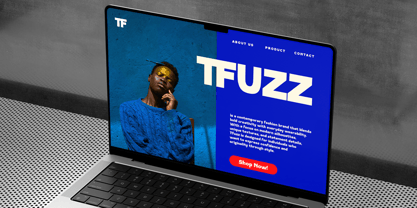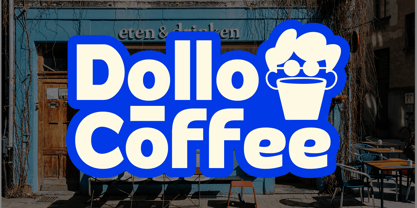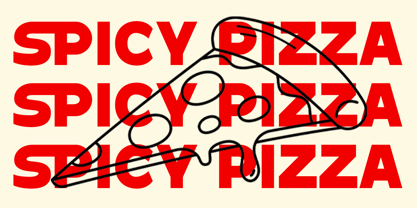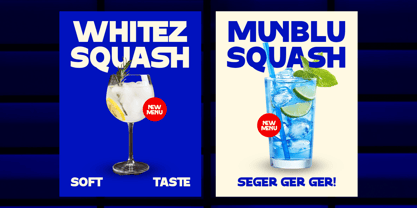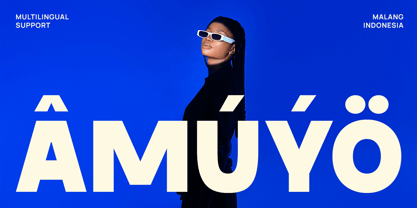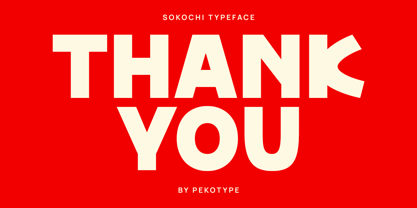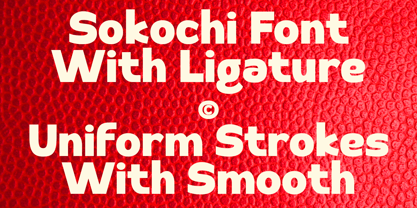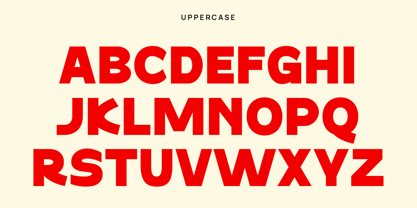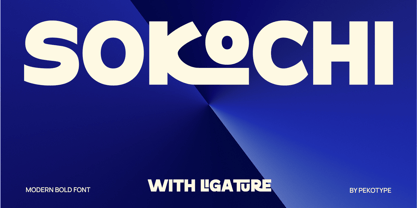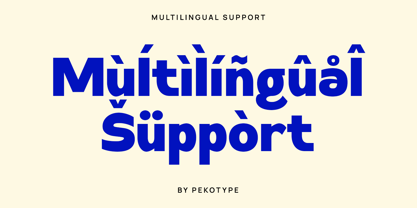
Sokochi
by Pekotype
The Sokochi Font Family was designed by Galang Bryan and published by Pekotype. Sokochi contains 1 styles. More about this family
SOKOCHI is a bold modern display font with stylish ligatures that add a unique and professional touch to your typography. Its clean geometric shapes and contemporary look make it perfect for branding, logos, packaging, posters, social media content, and marketing materials. Designed to be both eye-catching and easy to read, SOKOCHI helps create strong, modern designs that feel creative, polished, and memorable.